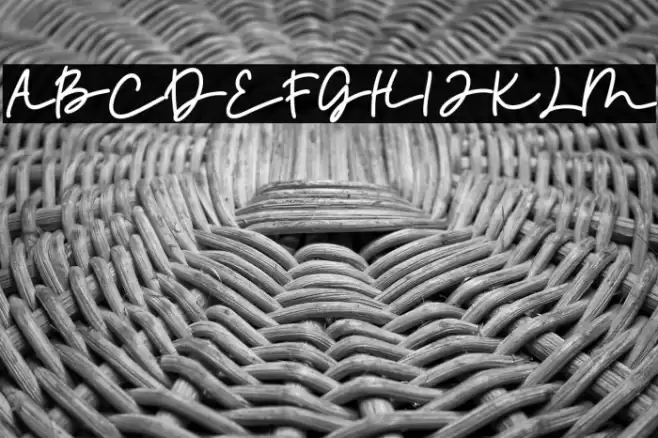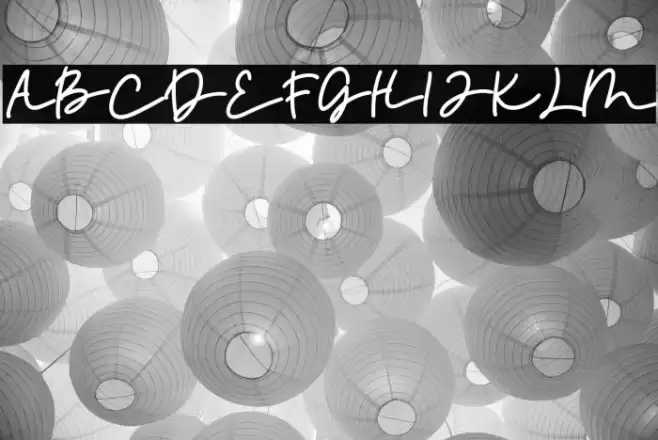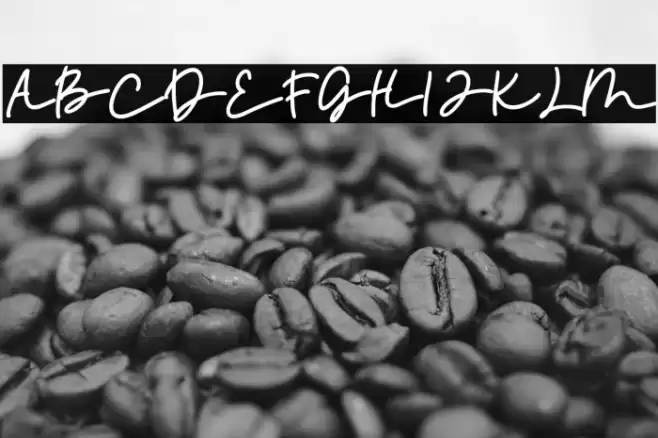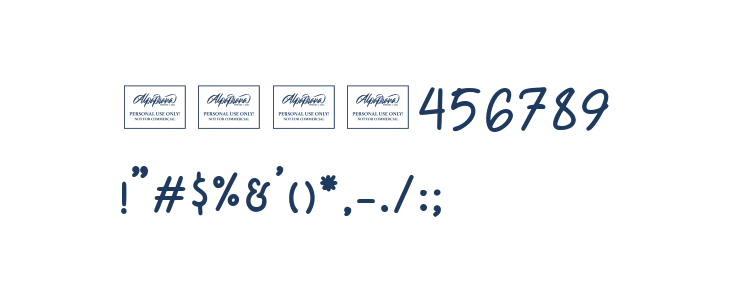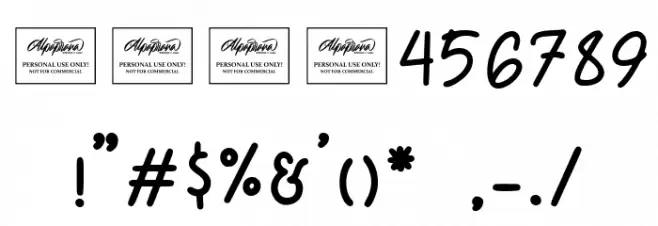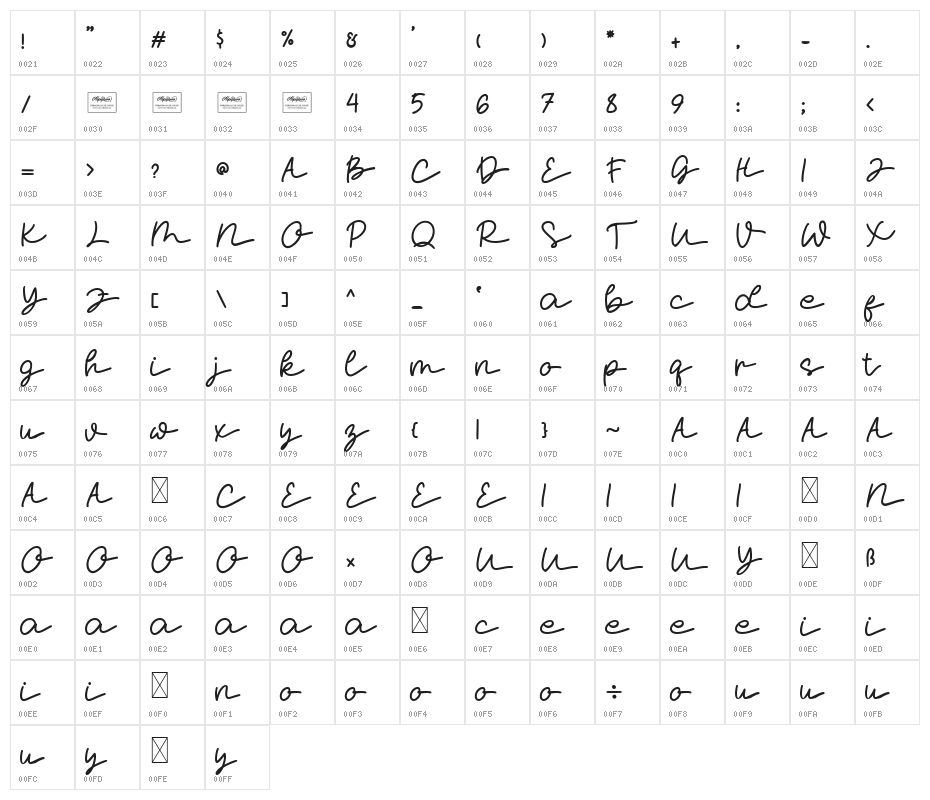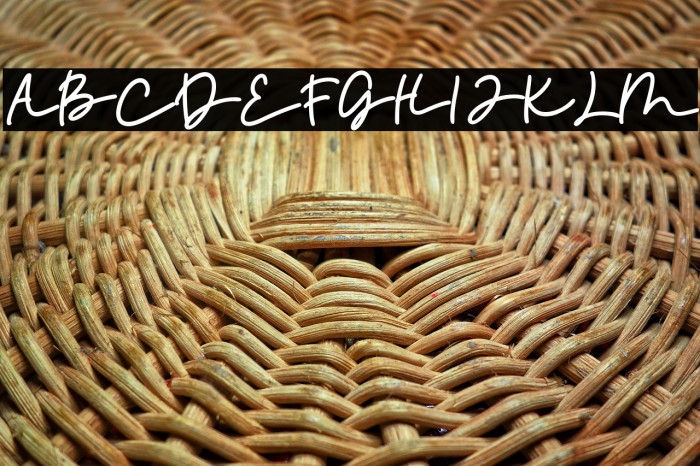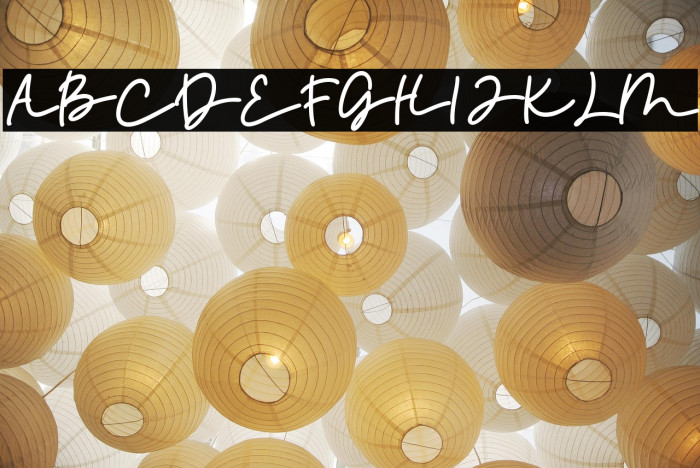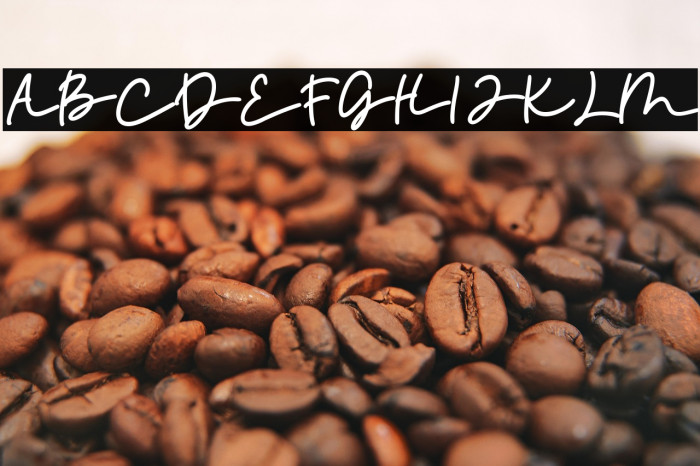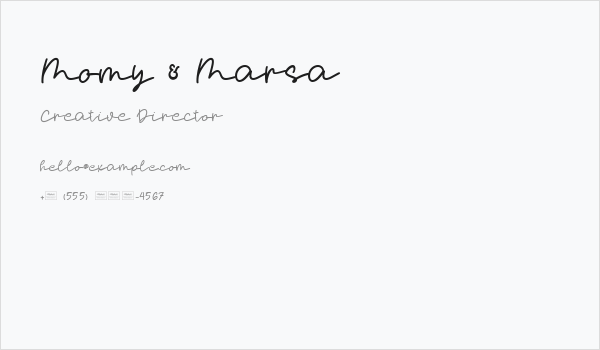
Momy & Marsa Font
Momy & Marsa Description
This font features a flowing, cursive style that mimics natural handwriting. The letters are connected, creating a seamless and elegant appearance. The strokes are smooth and consistent, with a slight slant to the right, enhancing its handwritten feel. The uppercase letters are slightly larger and more pronounced, while the lowercase letters maintain a uniform height, contributing to a balanced look. The numbers and special characters are designed to match the overall style, ensuring coherence across all elements. This font exudes a personal and approachable vibe, making it suitable for projects that require a touch of warmth and personality.
A cursive, handwritten-style font with smooth, connected letters from Uncategorized fonts.
- Font: Momy & Marsa
- Proposed Projects: Ideal for wedding invitations, personal branding, greeting cards, and social media graphics.
- Overall Style: Handwritten
- Use Case: Logos, Invitations, Personal notes